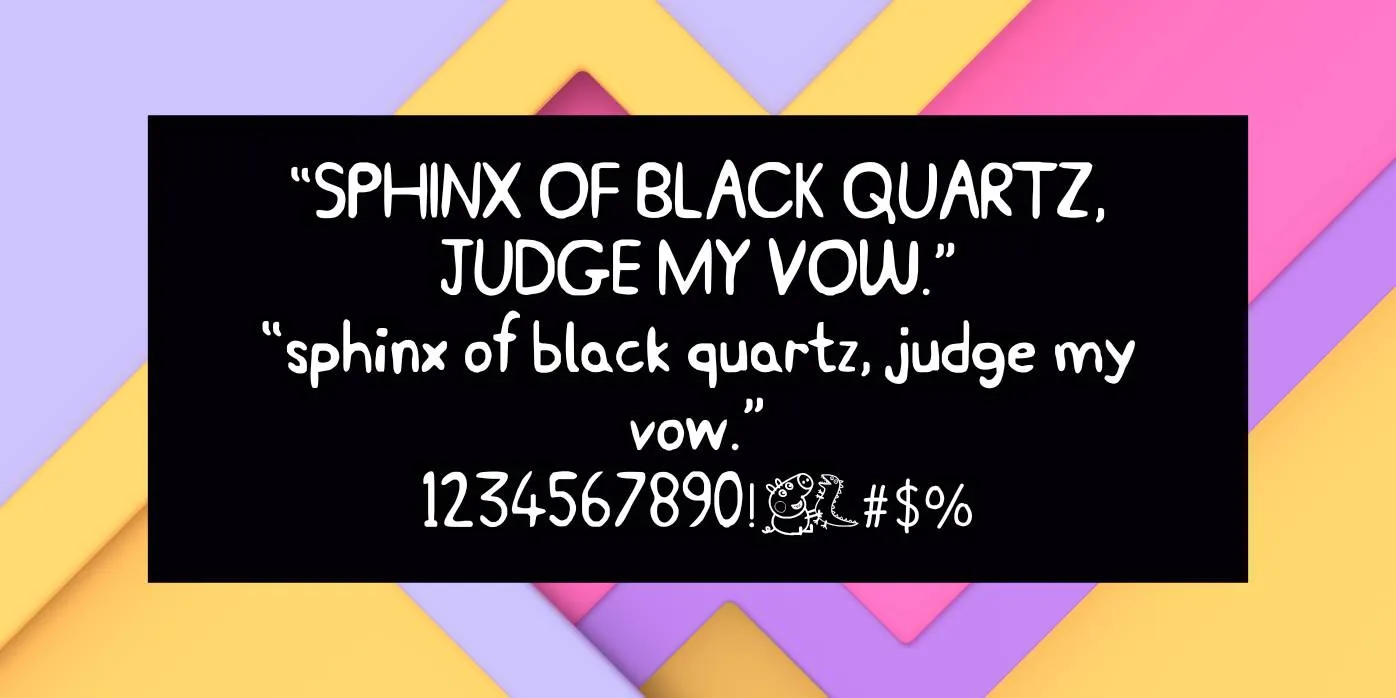
Peppa Pig Font
Today, you are going to read about the script type of font. Peppa Pig Font is a fantastic script type of font. KiddieFonts is the designer of this texture. The characters of this typeface are amazing, big, readable, and classic.